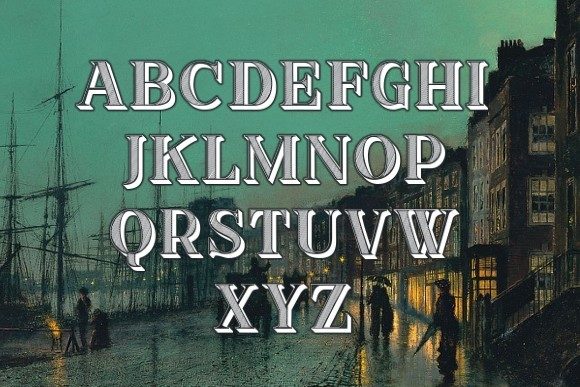
Introduction to Liverpool Font
There’s nothing quite like the thrill of brainstorming a new creative project – the blank page, the endless possibilities, the rush of excitement as ideas begin to flow. For designers, this moment is the spark that sets off a chain reaction of inspiration, experimentation, and innovation. And what better way to fuel this creative fire than with a high-quality font that truly makes a statement? Enter the Liverpool Font, a cool and bold display font that’s sure to elevate any poster, flyer, or print design.
Liverpool Font Key Features
- High-quality font design, suitable for creative projects and professional use.
- Transparent background, allowing for easy customization and seamless integration with various design elements.
- Designed with a unique, modern aesthetic, perfect for adding a touch of sophistication to any creative project.
Honest Review: Liverpool Font
One of the standout features of the Liverpool Font is its transparent background, which makes it incredibly versatile for various design applications. I love how it adds a touch of sophistication to any layout.
- ✨ Unique, modern design that’s perfect for creative projects
- ✨ High-quality font that’s easy to read and print
- ✨ Transparent background for seamless design integration
While the Liverpool Font is an excellent addition to any design library, there are a few limitations to consider. For example:
- ⚠️ Limited font weights and styles available
- ⚠️ Not ideal for projects requiring extensive font customization
Overall, I’m impressed with the Liverpool Font. It’s a solid design resource that’s perfect for designers looking for a modern, high-quality font for their creative projects. While it may not offer extensive customization options, its free download and transparent background make it a great choice for many designers.
Getting the Most Out of Liverpool Font
For the best results, use the Liverpool Font in combination with other high-quality design elements. You can also experiment with different font sizes and styles to create a unique look. The free download of the font makes it easy to get started with your creative project.
The Liverpool Font is perfect for any design project that requires a high-quality, free download font with a transparent background. It’s great for logos, business cards, and any other design that requires a professional look.